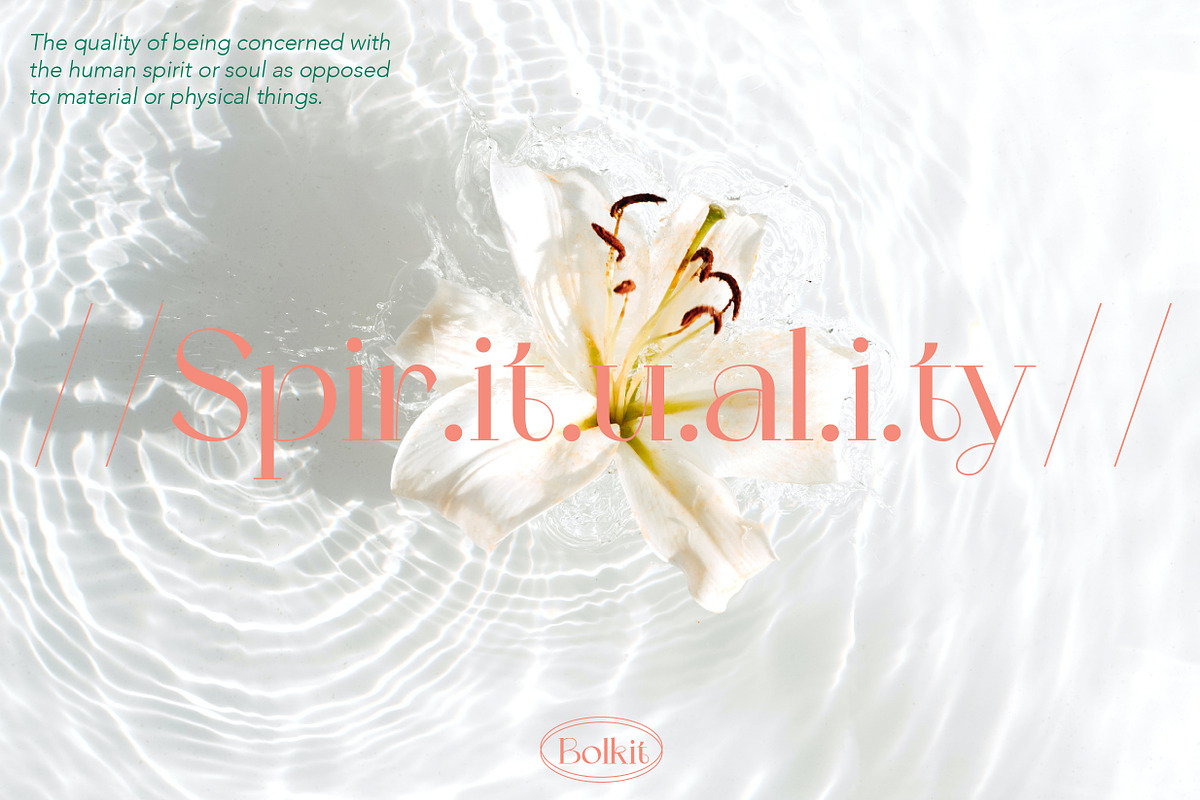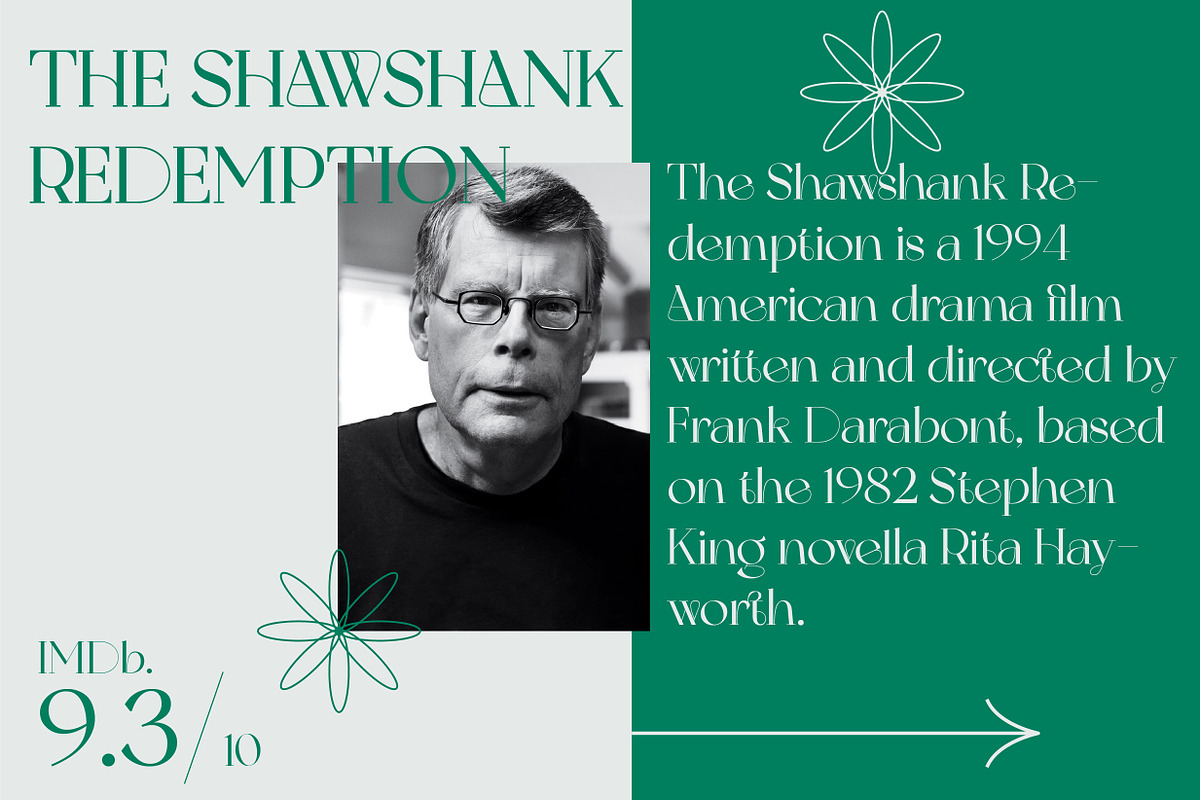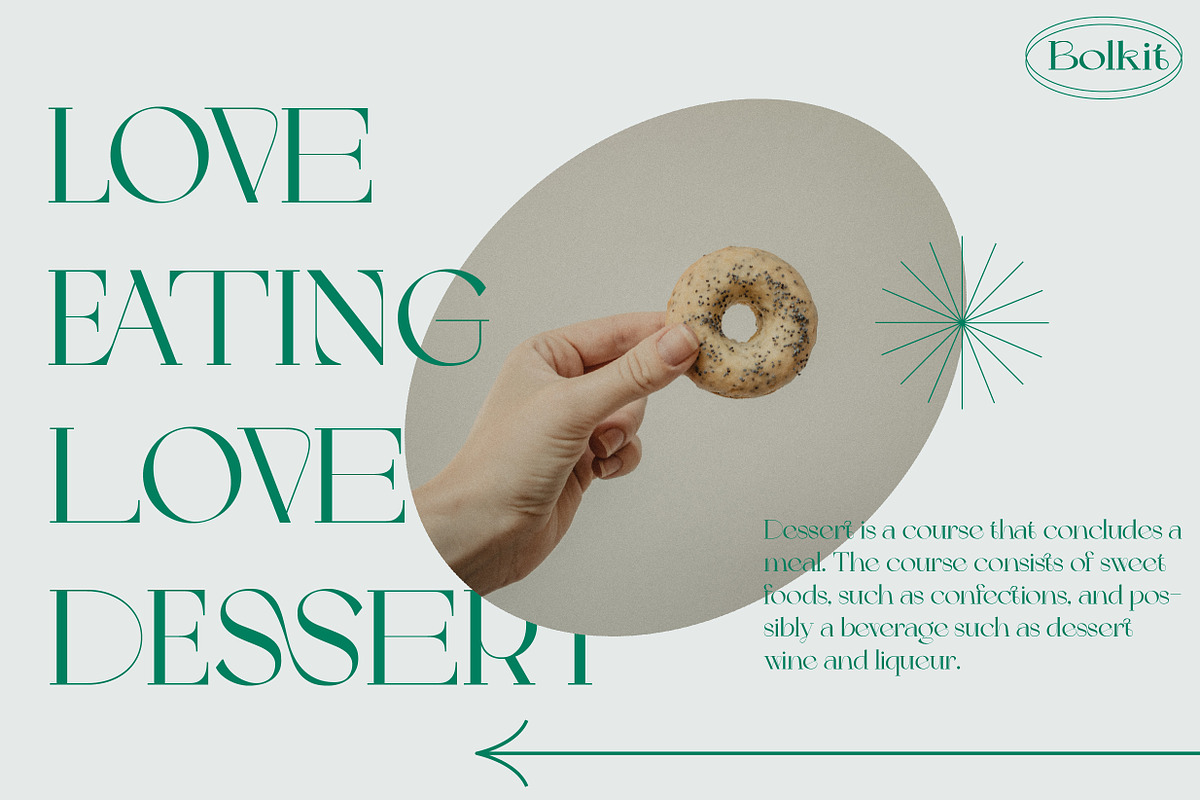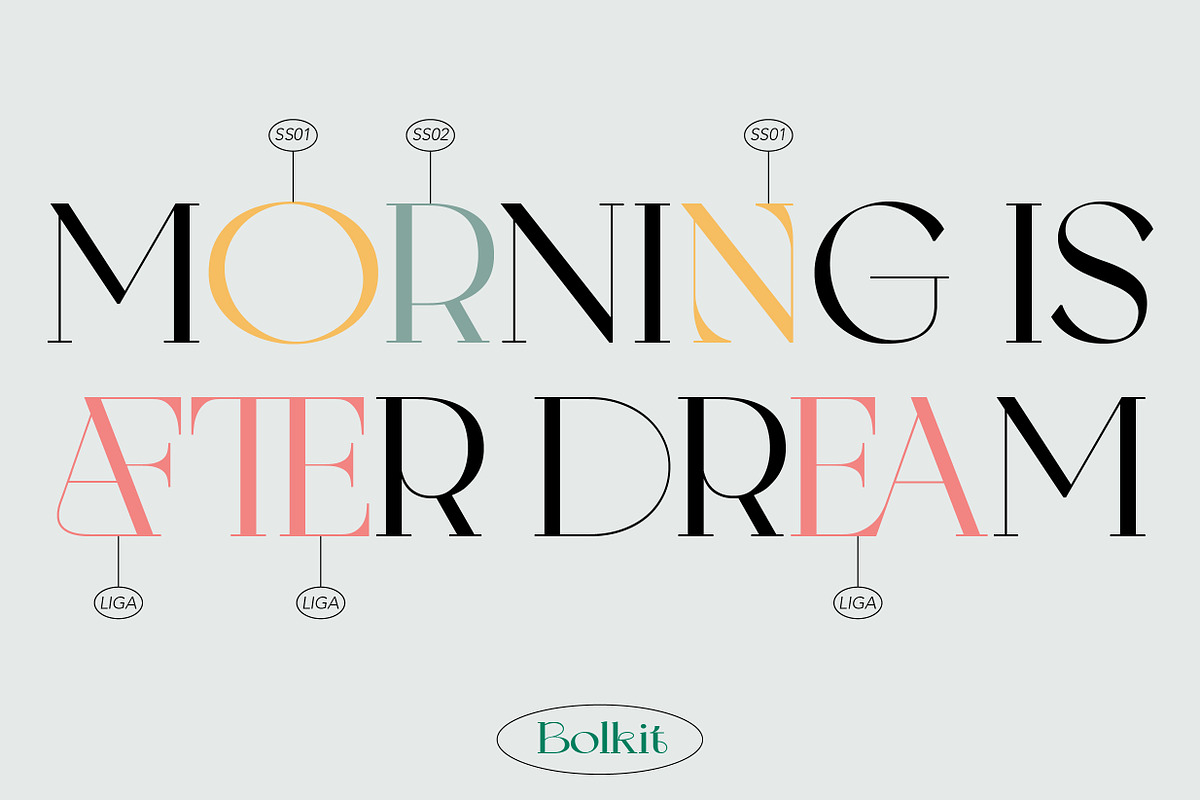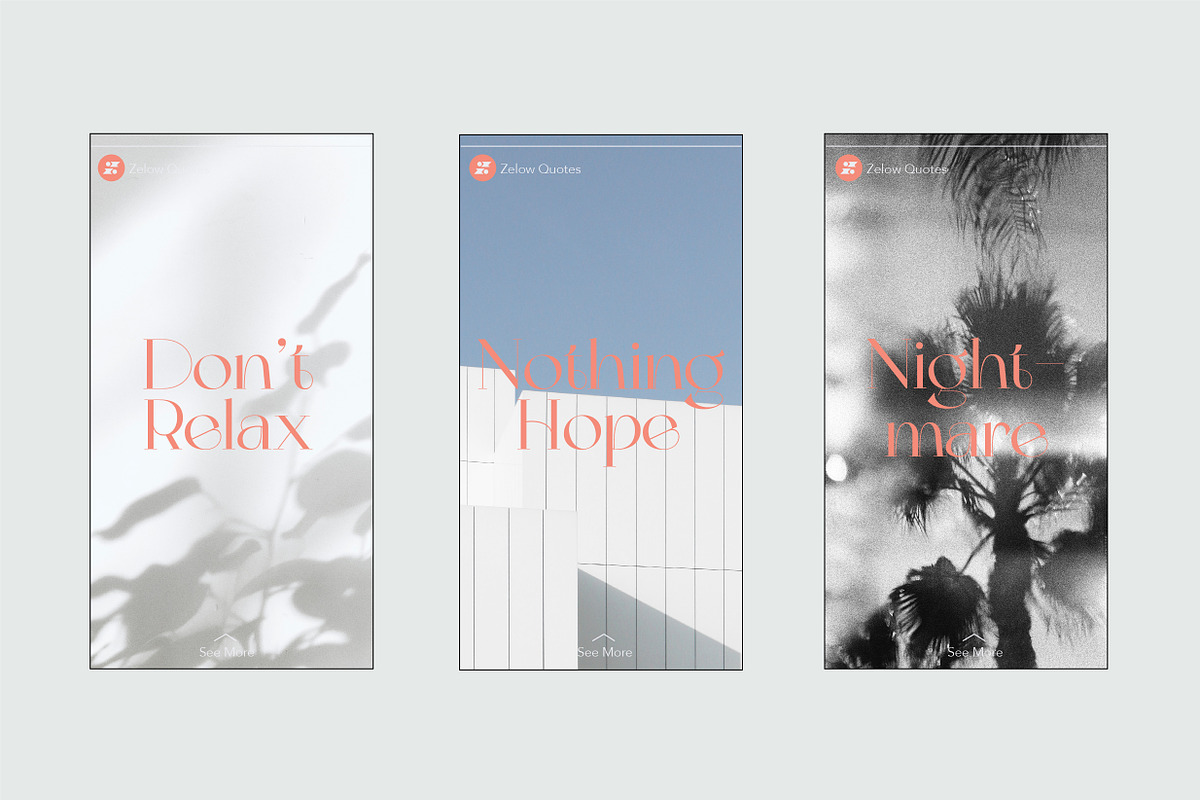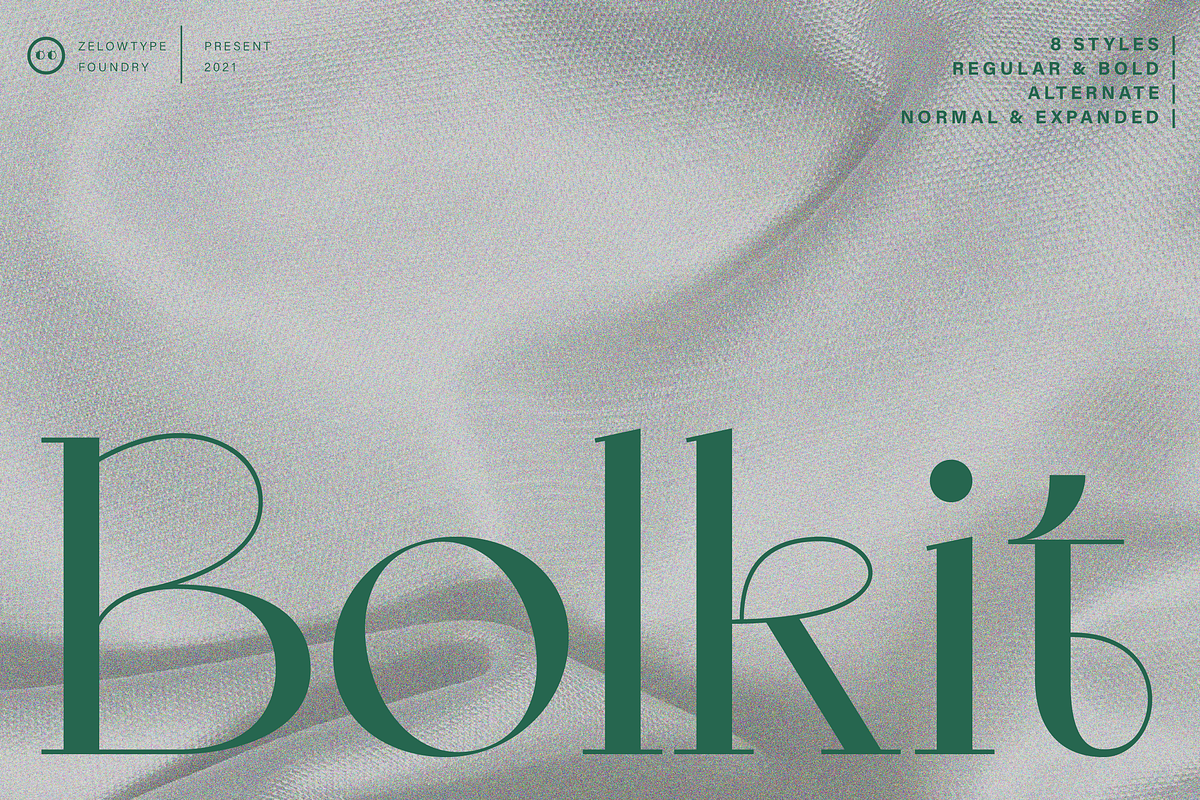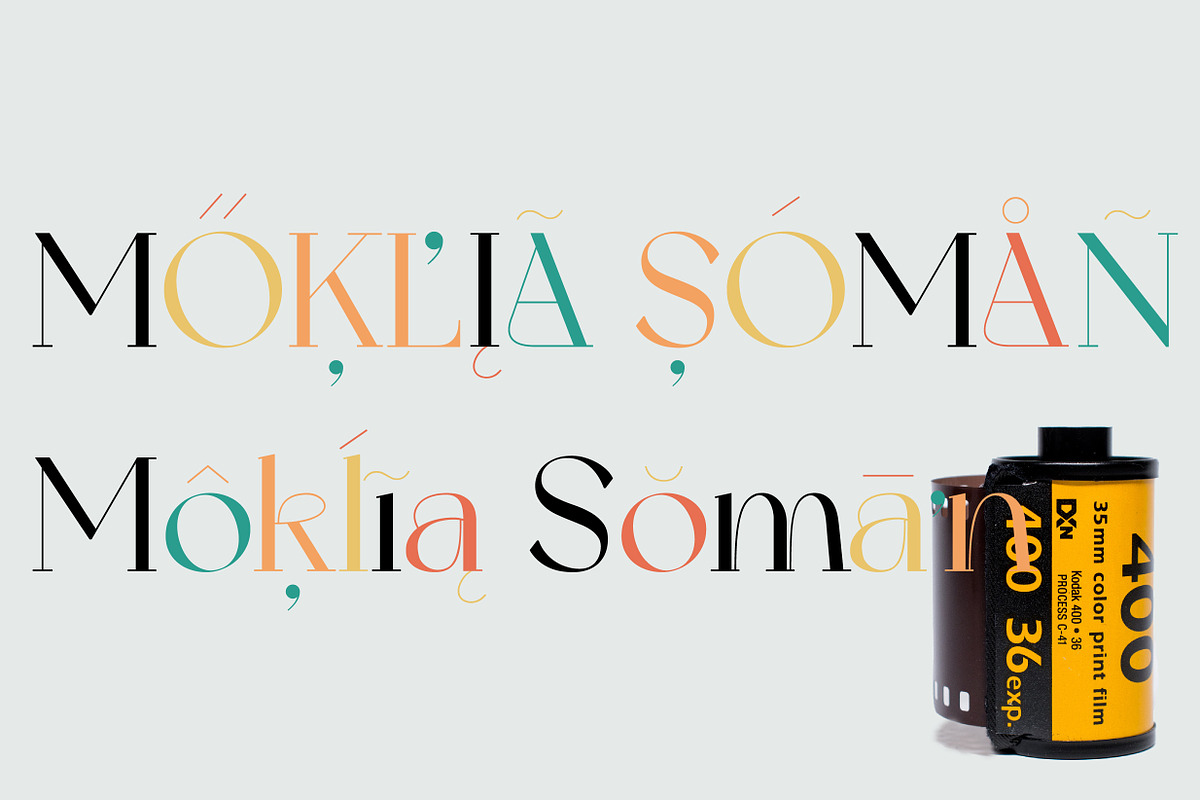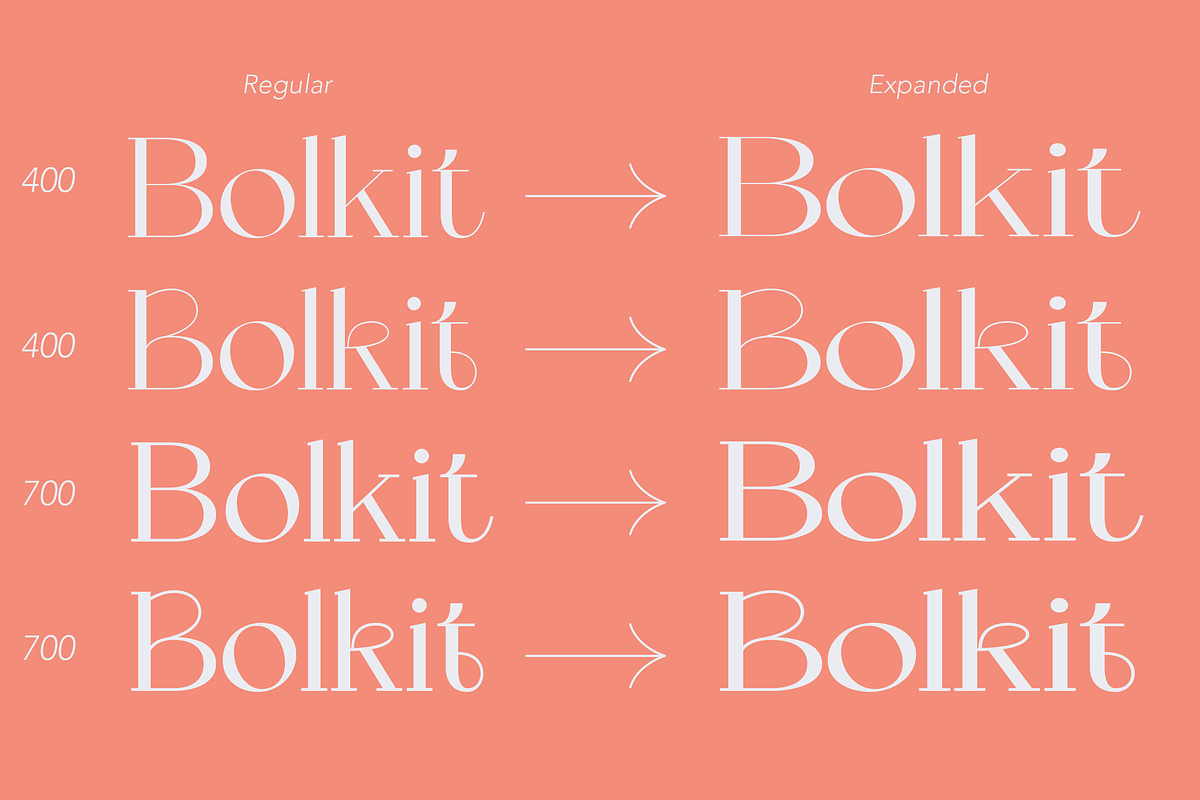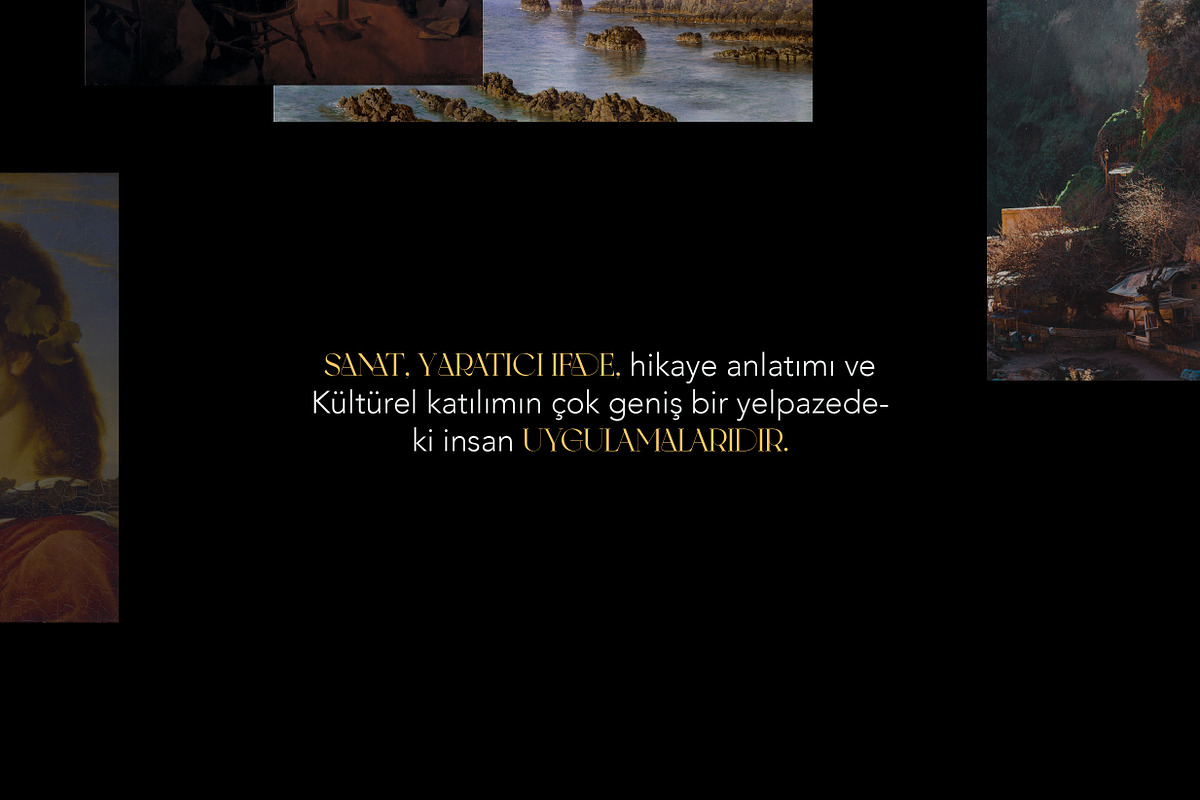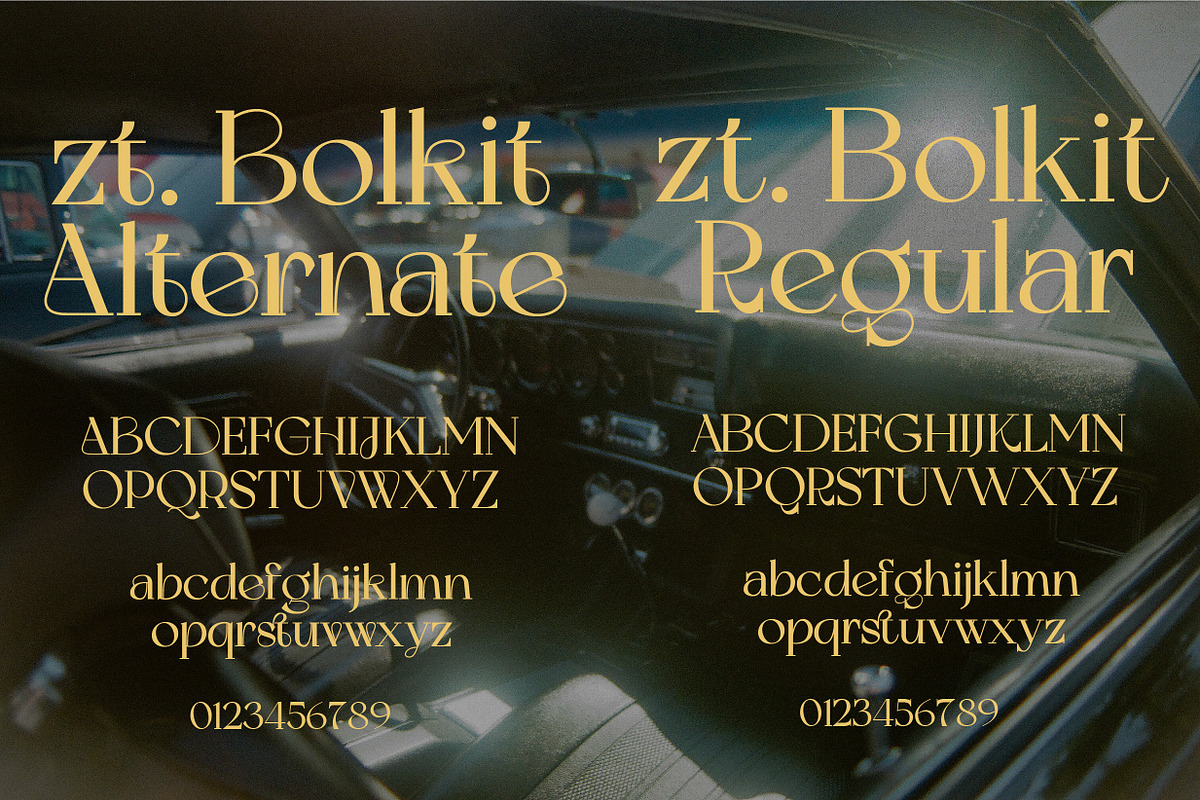
ZT Bolkit - Display Serif
ZT Bolkit Serif is a versatile typeface that boasts two distinct styles. The first style features an elegant and smooth arch shape, evoking a sense of sophistication. In contrast, the second style exudes firmness, presenting characters with a bold and strong demeanor. Rooted in the concept of simplicity, the lines in both the elegant and firm versions of ZT Bolkit offer a refined and inviting aesthetic.
ZT Bolkit also introduces two widths, each available in two weights (Thin and Bold). This comprehensive typeface includes uppercase and lowercase letters, numbers, punctuation, 52 ligatures, 25 alternatives, and symbols. These elements collectively contribute to enhancing the visual appeal of your designs. Moreover, ZT Bolkit supports over 60 languages derived from the Latin script, encompassing Western, Central, and Southeastern European languages. Immerse your designs in the seamless blend of elegance and strength that ZT Bolkit Serif provides.